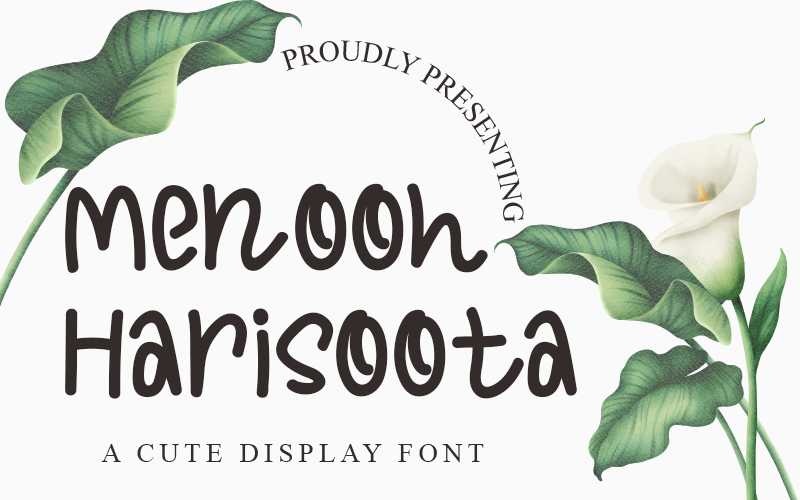
Preview and download Menooh Harisoota Font. Created by Denny Sutanto in Script Handwritten styles with Free for personal use license.
Menooh Harisoota Font is a Display Font with small and simple letters. This Font is perfect for all of your Product Design such as Social Media Post, Advertisement, etc that has joyful and fun feels. Note of the author: NOTE: This Demo is for PERSONAL USE ONLY! But any donation are very appreciated. PayPal Account for Donations: https://lnkd.in/fPg-VuA Link for Donations via PayPal: paypal.me/dennysutanto93 link to purchase full version and commercial license: - https://www.creativefabrica.com/product/menooh-harisoota/ref/235725/ Please visit our store for more great fonts: https://www.creativefabrica.com/designer/dennysutanto060393/ and follow my Instagram for update: https://www.instagram.com/densudesign/ Thank You |